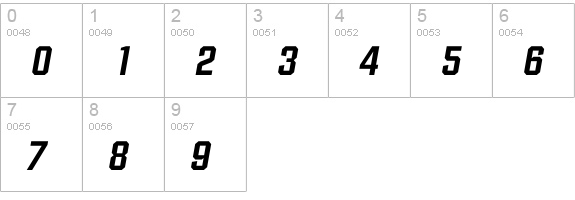
Idiamante DemiBold is a sub-bold, structured variant in the Idiamante typeface family \xE2\x80\x94 well suited to sub-headlines and emphasised passages.
Introducing Idiamante DemiBold font, a versatile typeface that exudes elegance and sophistication. With its bold and confident letterforms, this font is perfect for adding a touch of modernity to any design project. Idiamante DemiBold font strikes the perfect balance between boldness and subtlety, making it ideal for headlines, logos, branding, and editorial designs. Its clean and sharp lines command attention, while its slightly rounded edges add a subtle warmth and approachability. This font offers a wide range of characters, including uppercase and lowercase letters, numerals, punctuation marks, and special symbols. With its extensive language support, Idiamante DemiBold font is ready to cater to your design needs, no matter the language or region. But what sets Idiamante DemiBold font apart is not just its exceptional design and versatility, but also its accessibility. It is available for free, making it the perfect choice for designers, creatives, and enthusiasts alike. To get your hands on this exquisite font, simply head over to FontsMarket.com where you can download it freely and start incorporating it into your projects. Don't miss out on this opportunity to elevate your designs with the captivating charm of Idiamante DemiBold font.